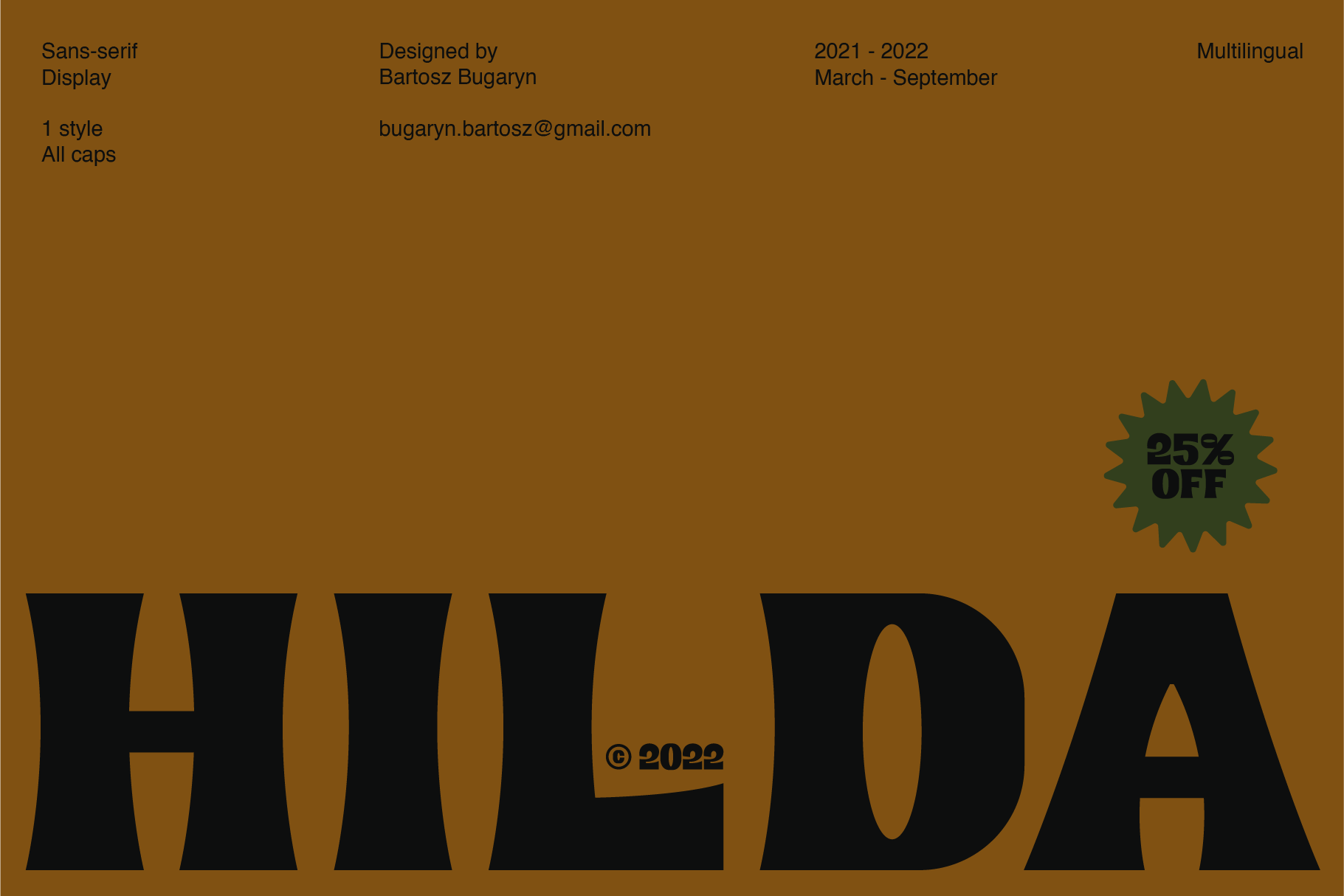
Hilda Typeface
Hilda is an ode to countryside. This typeface is inspired by the peace that comes with escaping the city and drinking a cup of coffee while listening to the chirping of birds. The name comes from a cartoon series “Hilda” based on comic series by Luke Pearson.
I describe it with 2 words - elegant and playful. It is an all caps, display font that can be used for titles and short texts. Hilda is multilingual and if it gains enough recognition I am willing to add more weights and styles!